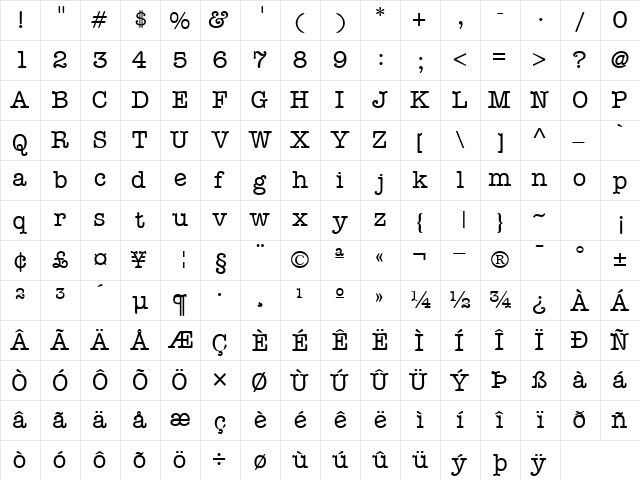
KeyboardAlternateSSK Regular Font Preview
KeyboardAlternateSSK Regular
Design Context for KeyboardAlternateSSK Typeface
KeyboardAlternateSSK offers clean, dependable letterforms without strong stylistic allegiance, making it a practical choice for designers who need flexibility.
Pro Tip: Use KeyboardAlternateSSK in both headline and body roles to test its range before committing to a single application.